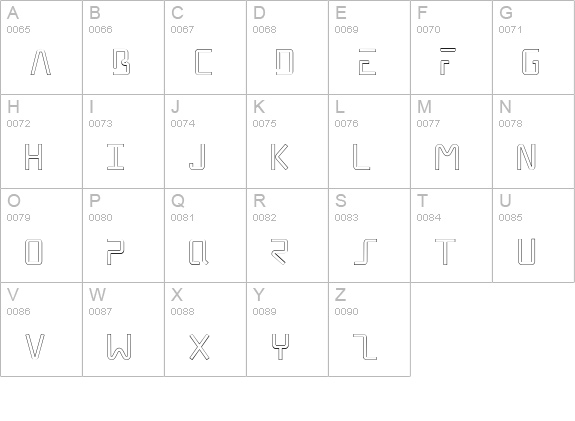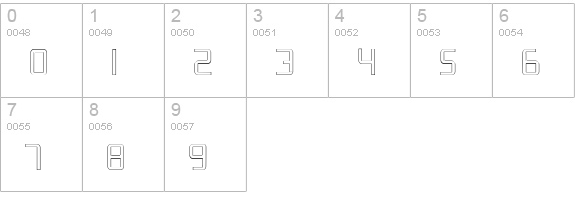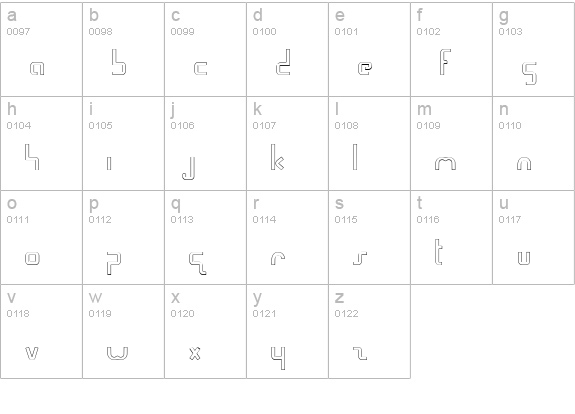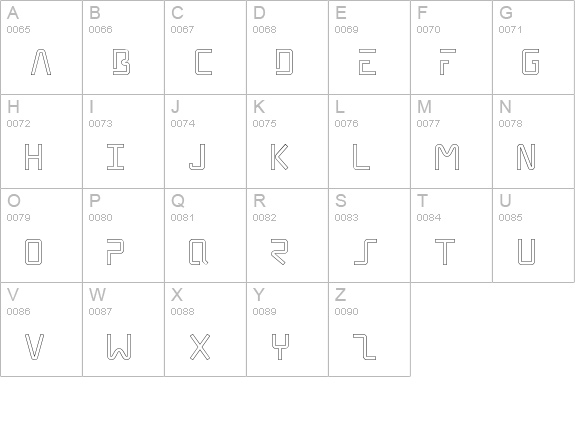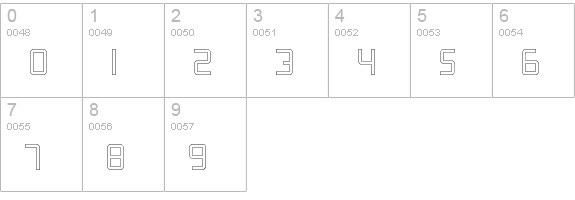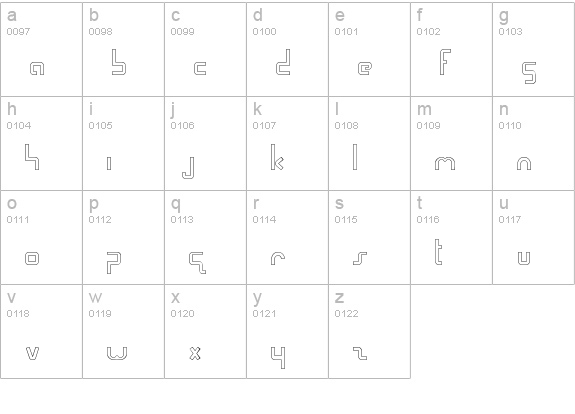
CK Video Game Font Details
Introducing CK Video Game font, a dynamic and eye-catching typeface designed for gamers and tech enthusiasts alike. This font exudes a sense of modernity and excitement, perfect for capturing the essence of the digital world. With its sleek lines and futuristic style, CK Video Game font is sure to make your designs stand out from the crowd. The best part? CK Video Game font is completely free to download at FontsMarket.com! That's right, you can easily access this cutting-edge font without any cost. Whether you're creating gaming logos, website headers, or social media graphics, CK Video Game font is the perfect choice to add a touch of flair to your projects. Don't miss out on the opportunity to enhance your designs with this striking font. Download CK Video Game font today and take your creations to the next level!